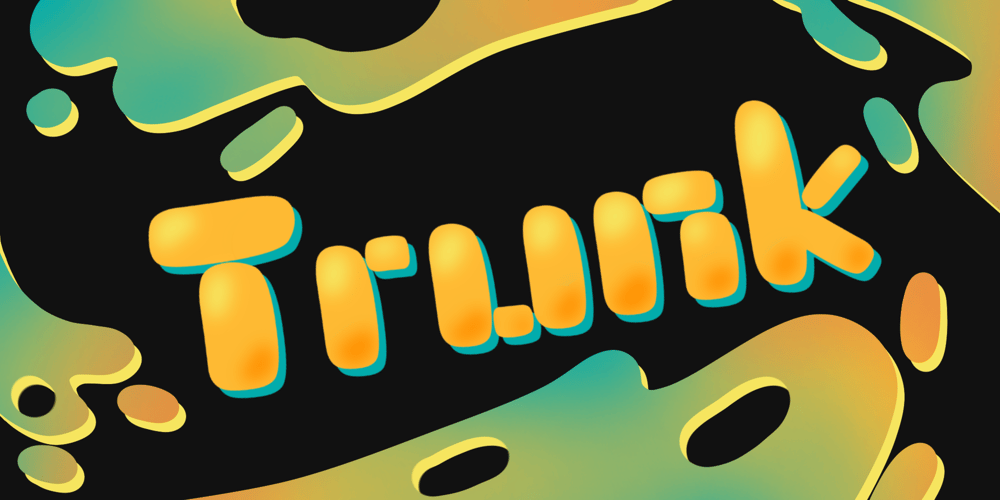
Trunk Font Family was designed by Zaizafun Hanifah and published by Daily Studio. Trunk contains 1 styles and family package options. Trunk is a bold and simple font published by Daily Studio. This is a decorative font design suitable for headlines, invitations, quotes, business card, posters, etc. This font includes full uppercase, lowercase, punctuation, and standard multilingual support.